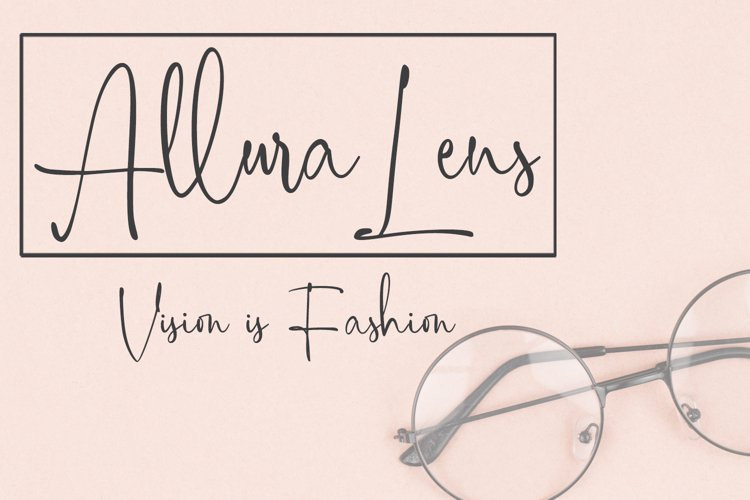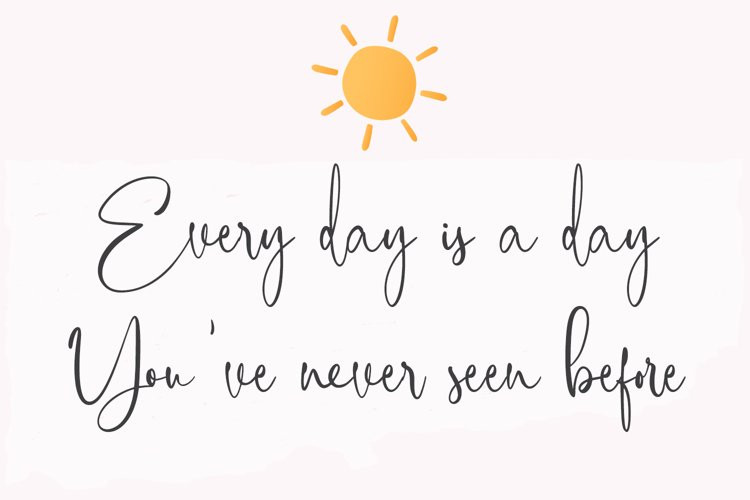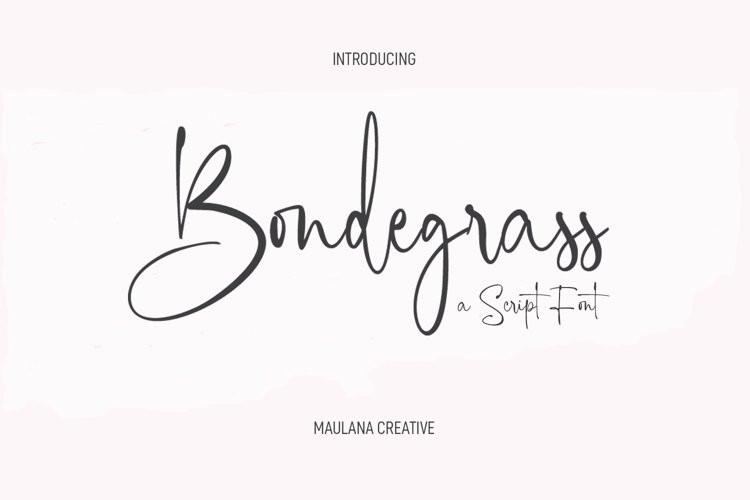
Bondegrass Font
Bondegrass FontBondegrass is a fancy handwritten script font. With pen contrast stroke, fun character with a bit of ligatures and alternates. To give you an extra creative work. Bondegrass font support multilingual more than 100+ language. This font is good for logo design, Social media, Movie Titles, Books Titles, a short text even a long text letter and good for your secondary text font with sans or serif. Make a stunning work with Bondegrass font.